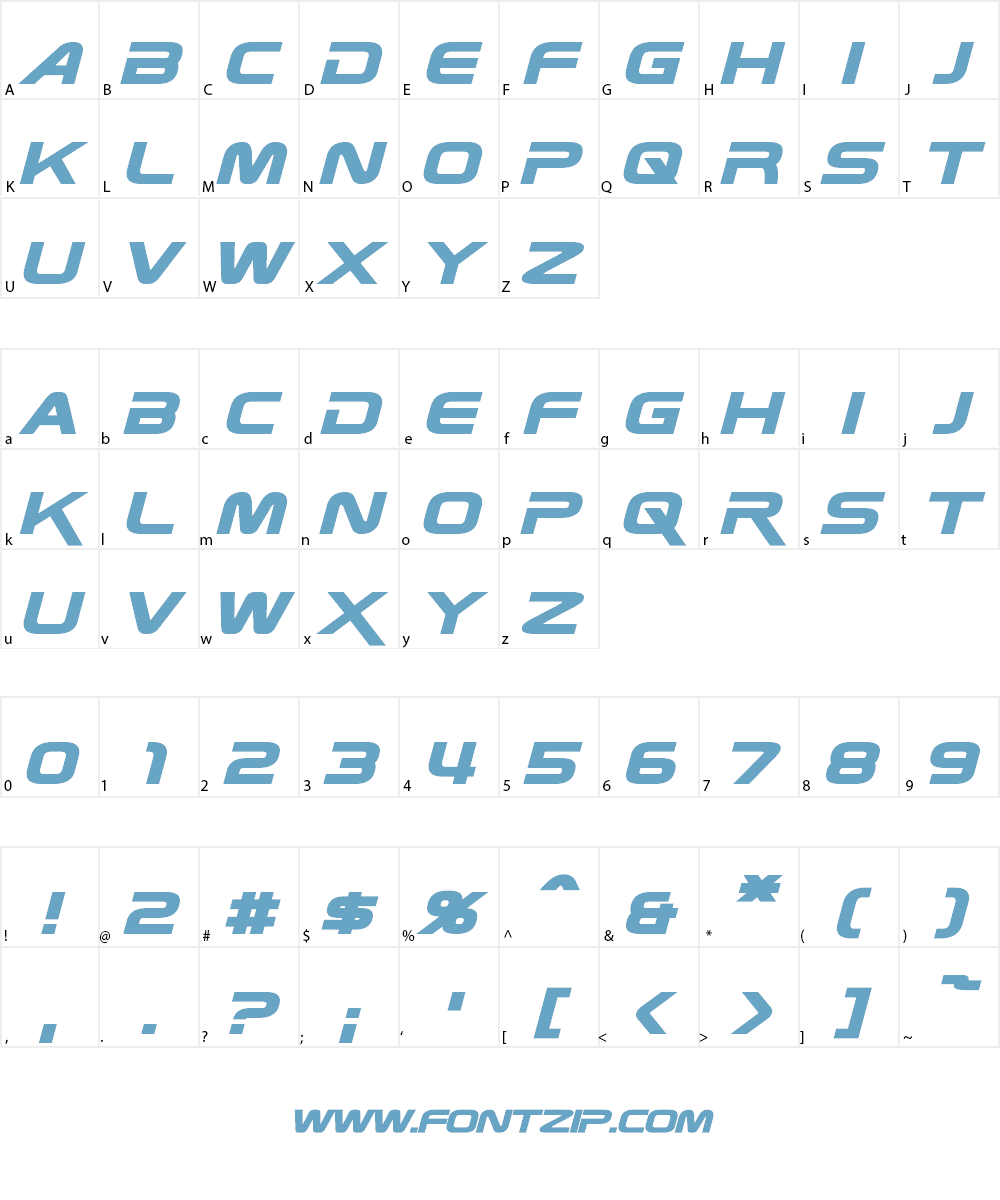
This science-fiction themed font is based on the title logo of TSR's classic "Star Frontiers" game series. Includes full alphabet, extended characters, Euro. Includes condensed, bold, italic, bold-italic, hollow versions. (Version 1.10)